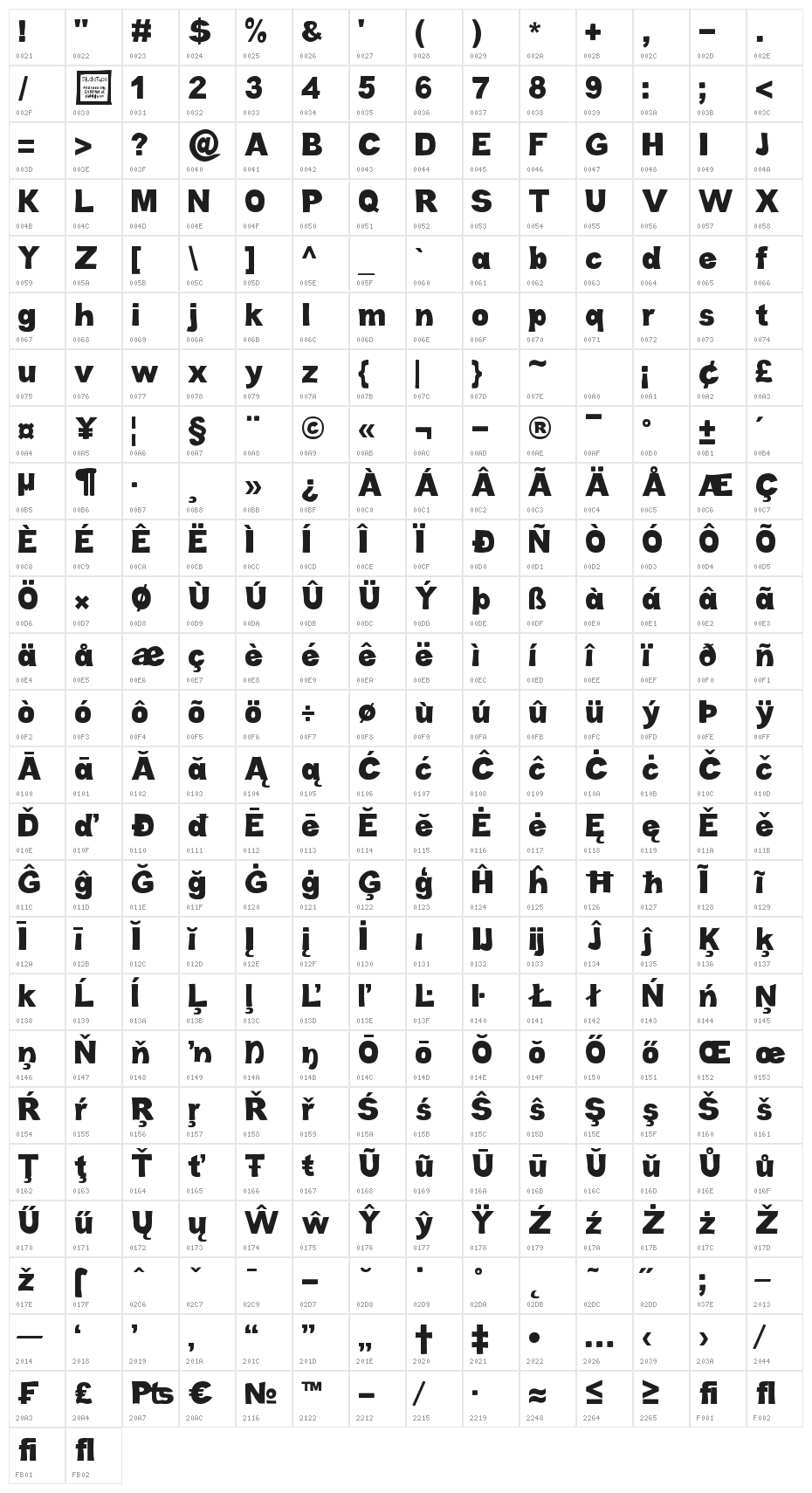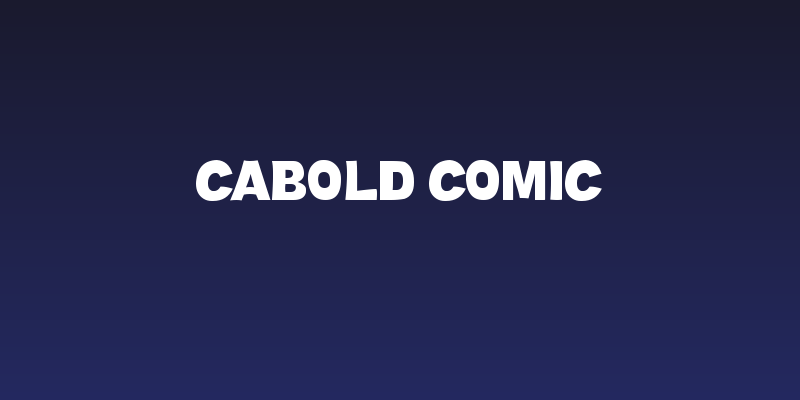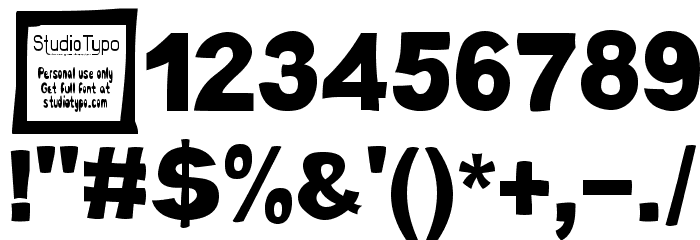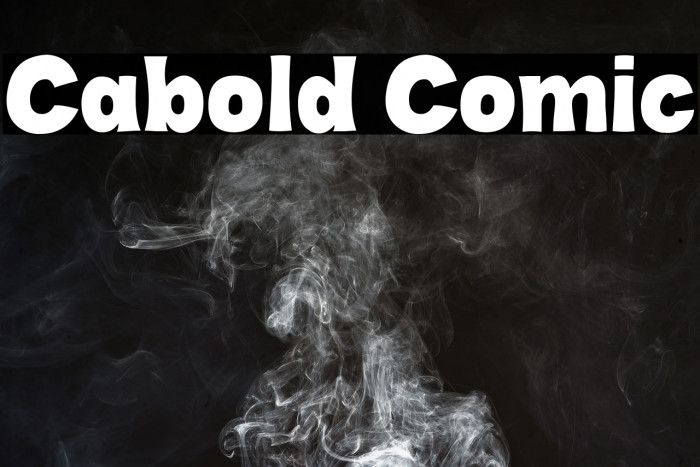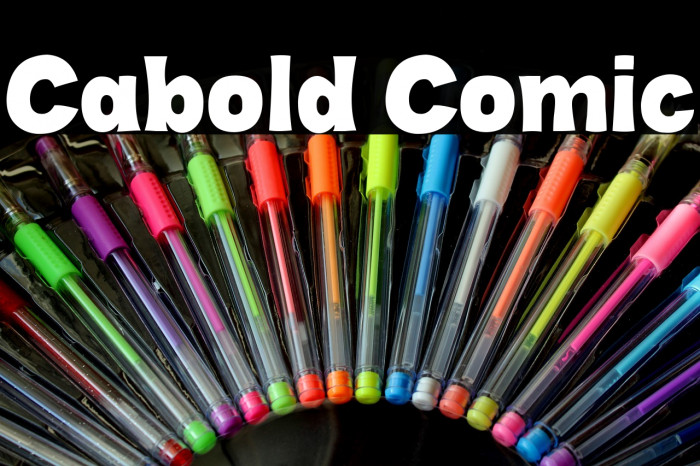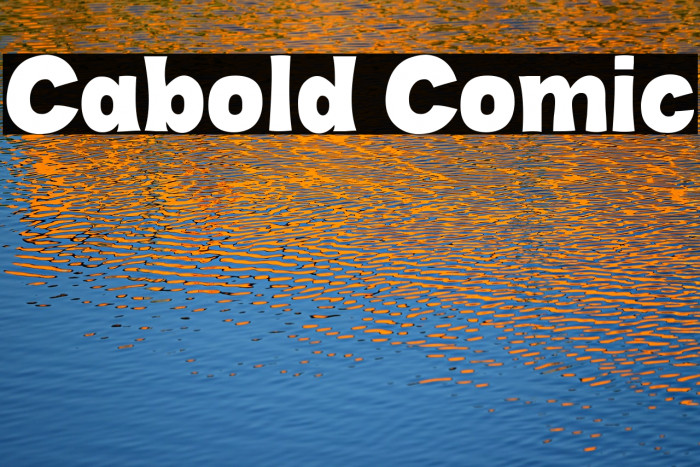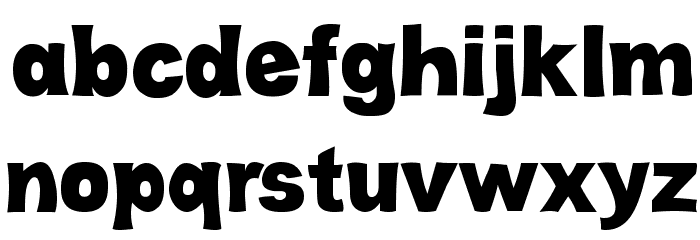
Cabold Comic Font
Cabold Comic Description
This font features a bold and playful style, characterized by its thick strokes and rounded edges. The uppercase and lowercase letters maintain a consistent weight, creating a cohesive look. The numbers and special characters are designed to match the overall aesthetic, making them suitable for a variety of uses. The font's design is reminiscent of comic book lettering, with a lively and informal appearance that adds a touch of fun to any project. Its readability is enhanced by the clear distinction between characters, despite the boldness of the strokes.
| Overall Style | Playful, Comic |
| Proposed Projects | This font is perfect for comic books, children's books, playful branding, posters, and any project that requires a fun and engaging typeface. |